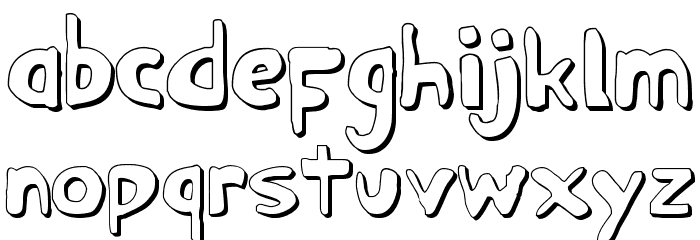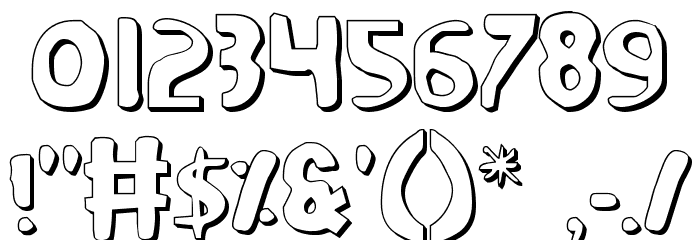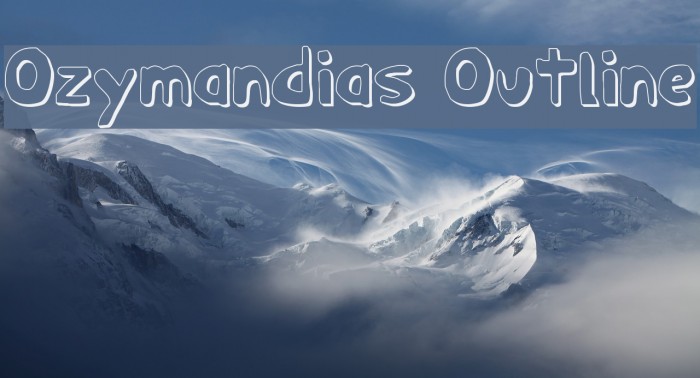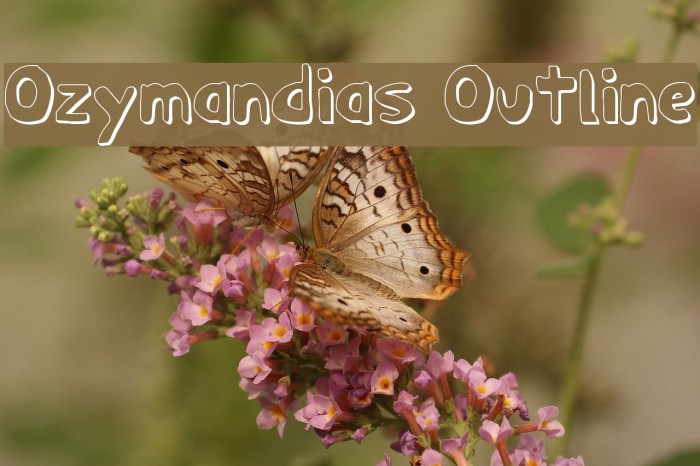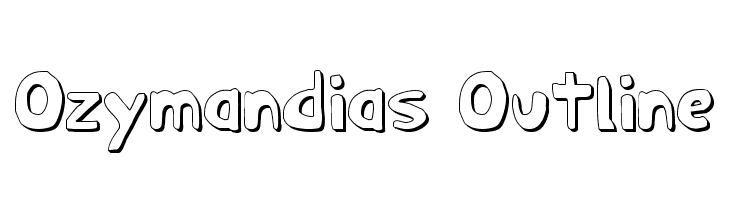
Ozymandias Outline Font
This font features a playful and bold outline style, characterized by its thick, rounded edges and whimsical appearance. The uppercase and lowercase letters maintain a consistent width, creating a harmonious look. The numerals and special characters follow the same design principles, ensuring uniformity across all glyphs. The font's outline nature gives it a unique, eye-catching quality, making it suitable for creative and informal applications. Its design is approachable and friendly, with a touch of retro charm, making it ideal for projects that require a fun and engaging typeface.
A playful, bold outline font with rounded edges and a whimsical style.
- Proposed Projects: Ideal for children's books, comic strips, playful branding, and creative posters.
- Overall Style: Playful, Retro